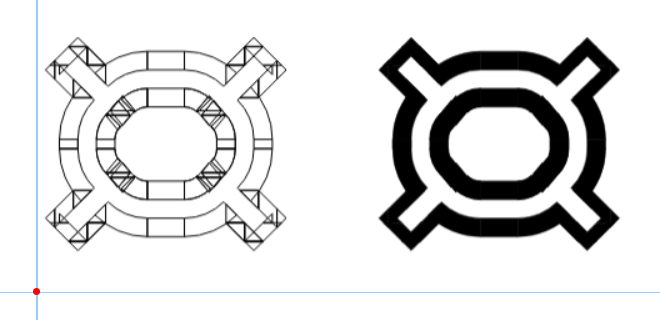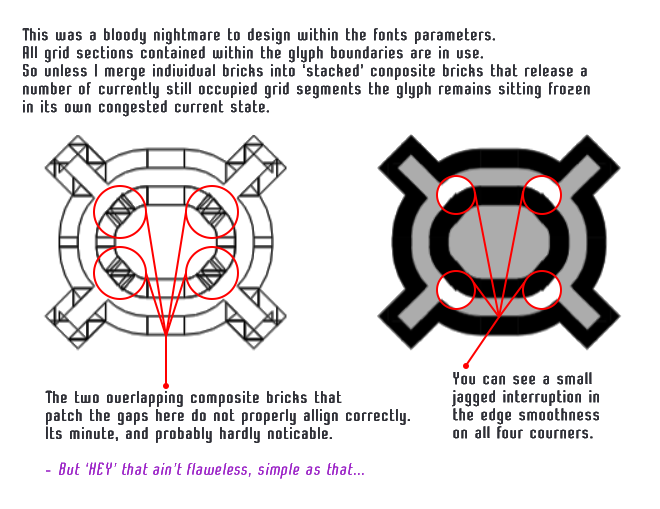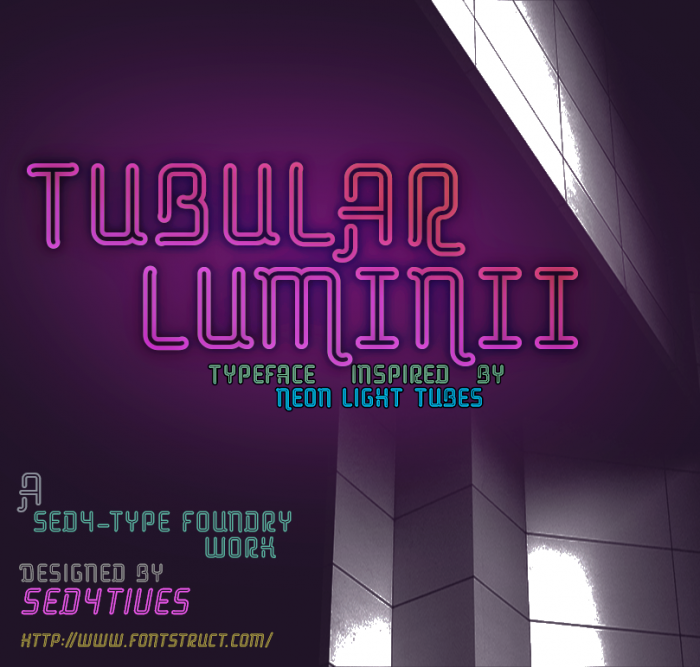
TUBULAR LUMINII - Rounded inline display sans
◇◆◇ ❒ CONCEPT ■ ■
⇛▸⇛ Font that mimics electrical gas-discharge tubes (Neon)
◇◆◇ ❒ BACK STORY ■ ■
A larger potion of the Neon-fonts that are found on the web often have these quite strong emphasis on their decorative design aspects, and a lot of them come in elaborate looking complex styles and form. Besides the numerous optional different personalized conceptual decorative elements implemented into the design, many typefaces also regularly use more commonplace modifications such as; ▸ multi-linear, incisions, patterned etc.
◇◆◇ ❒ THIS FONT ■ ■
Instead I went with a clean, simple basic geometric letterform, one that is essentially mono-linear at it's core. The one major key element that I have incorporated to the concept is that unmistakable in-line stroke. This was done to give it more of a convincing 'tubular'-concept as is the case with a real neon gas tube.
The other less pronounced but nonetheless fundamentally important design feature are the closed stroke-endings. Apart from being this extra little personalized element, it also suits a technical purpose. That of which is; "To fully preserve all 'in-lined'-negative (white) space in full isolation". This enables somewhat easier 'end-use' access to layer atributes or compound paths in graphic design software.
It's constructed mainly of connector bricks and a set of custom composite bricks, expanding FS's default connection brick set. Enabling greater viariational depth and complexity for custom shaping.
?? ARGH... (So close)... ?
?
I have spend some aweful time on designing a couple of solutions for the 'Currency Sign'... That designing such a 'bread and butter'-symbol like the 'scarab' whcih is typically straight forward and easy to design can be so damn tough all of a sudden when the 'inclosed in-line' design parameters are required.
????
PS: I'll drop a image bellow, any suggestions or improvements are more than welcome..
I'm not sure if it will line up exactly in the downloaded, but with some slight modifications to the file via FontLab, FontForge, Glyphs, etc., you could make it line up exactly, along with other improvements.
If you are a patron, then you can be able to have two bricks on the same grid space, even if the bricks have transformations applied to them via layering, but I am not sure if that would solve the issues.
↑ It should have said "downloaded file", and not "downloaded" by itself
@BWM: "If you're a patron, then you can have two bricks on the same grid space, even if the bricks have transformations applied through layers"...I don't get this...what exactly do you mean? Because I can't -or don't know- how to put two bricks in the same place (and I'm Patron).
@Sed4tives: I think you've done the best that can be done. Anyway, I'm going to try to remake the glyph under a slightly different concept. If I get something positive, I'll show it to you. On the other hand, nice first sample, maybe a bit dark for my view (lacks the neon glow, IMHO).
@BWM: Yeah well, long story short, I'd like my fonts to be the best I could get them in FontStruct itself as well... So I don't feel like making such edits in FontLab Studio. So if a certain attempt didn't work out I rather choose to create another sulution untill one pops out that does satisfy.
@elmoyenique: Yeah I haven't been able to make a better version yet, all attemptive runs at improvement only made it worse. (lol)
So I went on and continued including more additional stuff such as accented letters, more punctuations & symbols.
I tried to find a solution for the Currency Sign, and that's the best I can get. Probably the white space is too uneven for your needs.
(I used a 2x7 composite to smooth the outer curves)
❖ ⇒ 〔UPDATE v1.01〕 ✎✎
❖ What's new:
□ 「 ADDED 」
■ Included Latin accents (*support for 63 languages ✍)
■ Additional glyph alternates
■ New punctuation marks
■ Numerous extra symbols
☐ 「 CHANGES 」 ✍ ✎
☑ Numerous letters have been improved
☑ Additional exta kerning pairs added
☒ Overall kerning remains incomplete